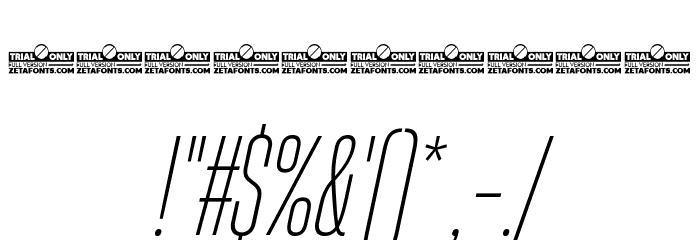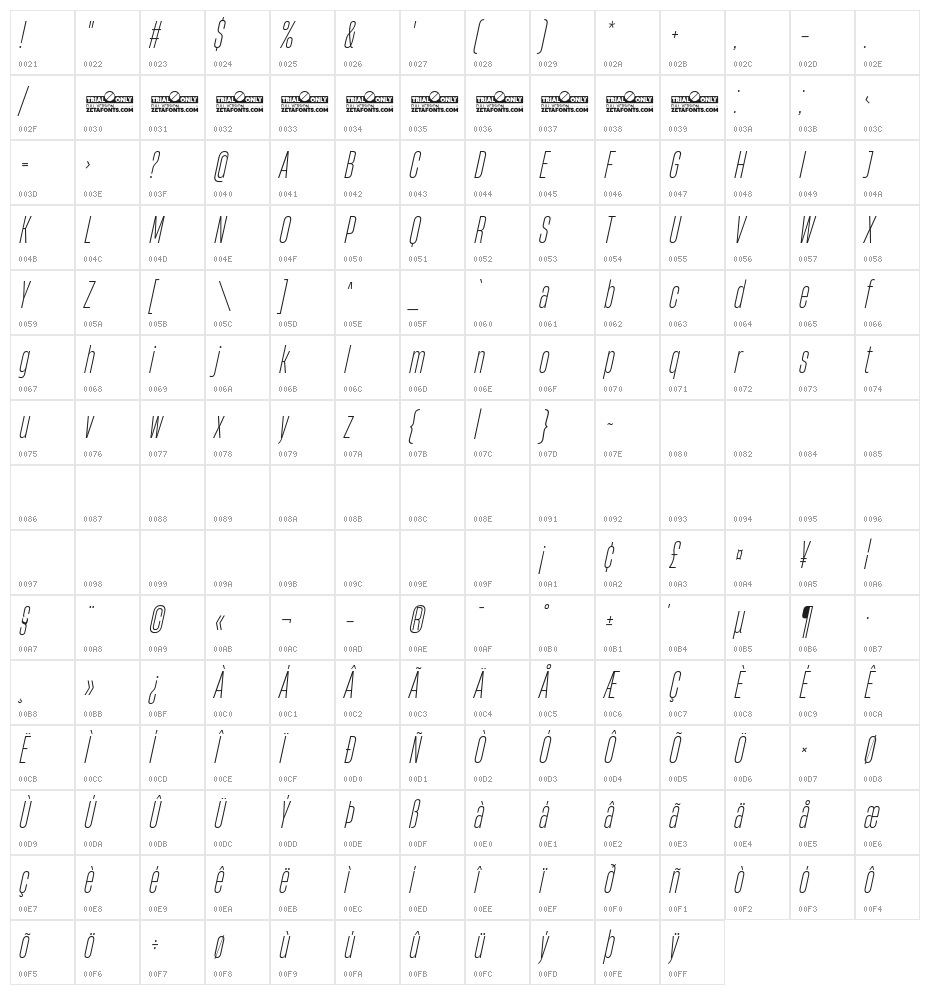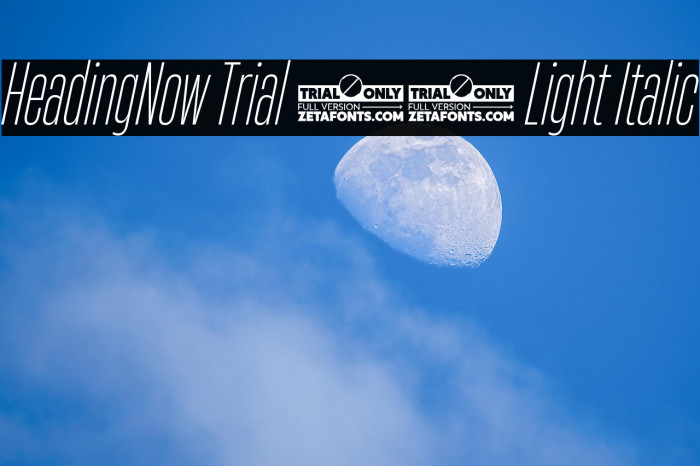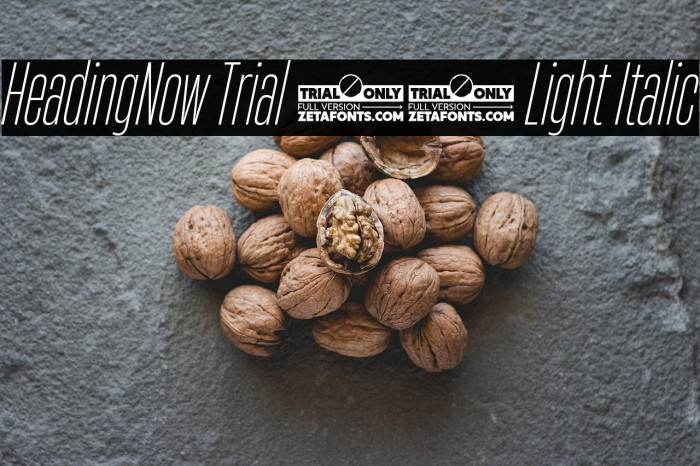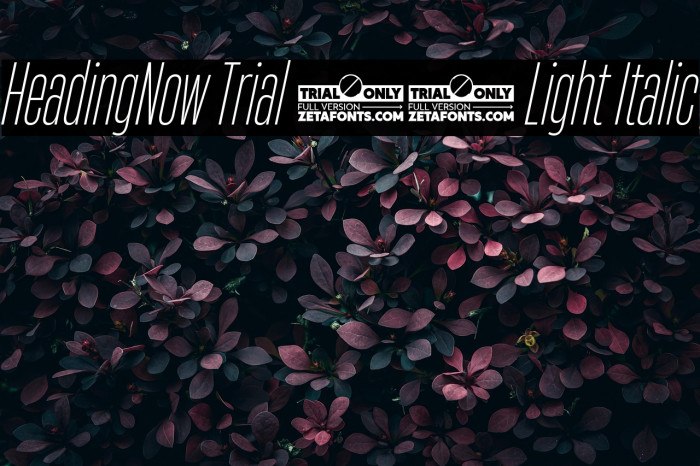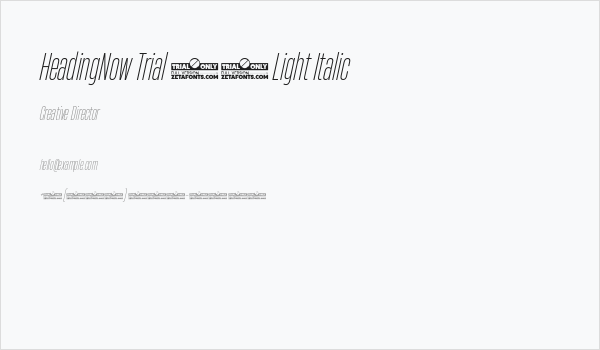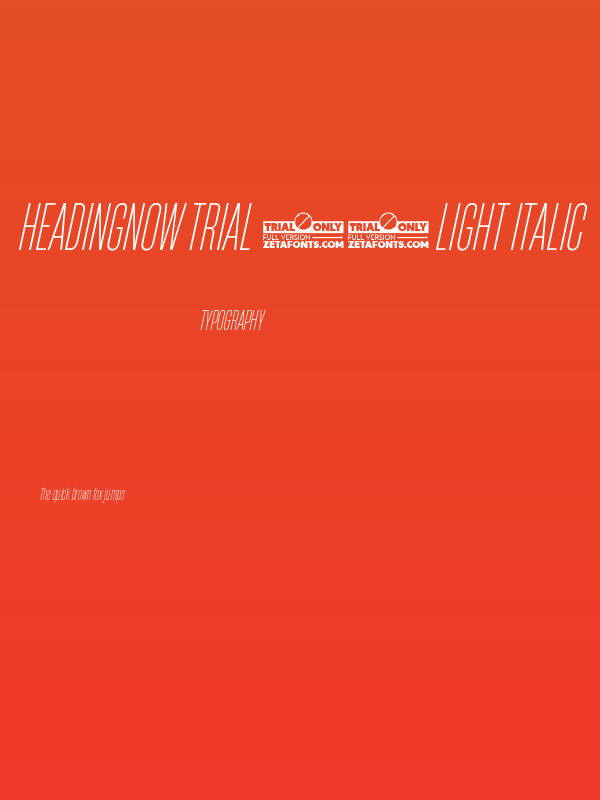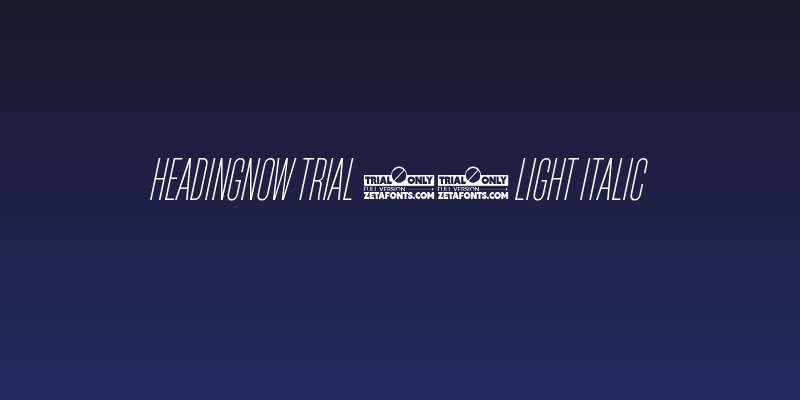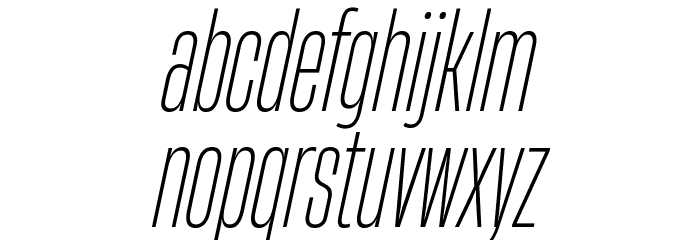
HeadingNow Trial 22 Light Italic Font
HeadingNow Trial 22 Light Italic Description
This font features a sleek, modern design with elongated letterforms and a distinct italic slant, giving it a dynamic and elegant appearance. The characters are thin and light, contributing to a refined and sophisticated look. The font maintains a consistent stroke width, which enhances its readability and clean aesthetic. The uppercase and lowercase letters are well-proportioned, and the numerals and special characters are designed to complement the overall style. This font is ideal for projects that require a contemporary and stylish touch.